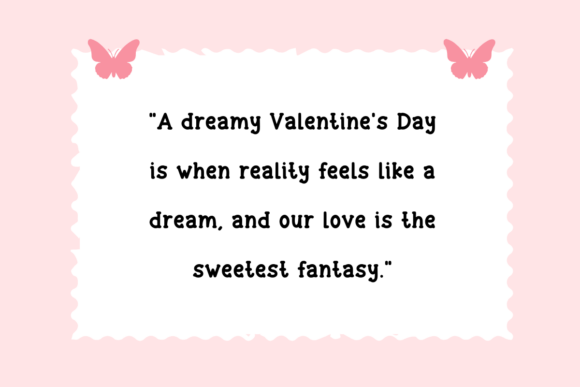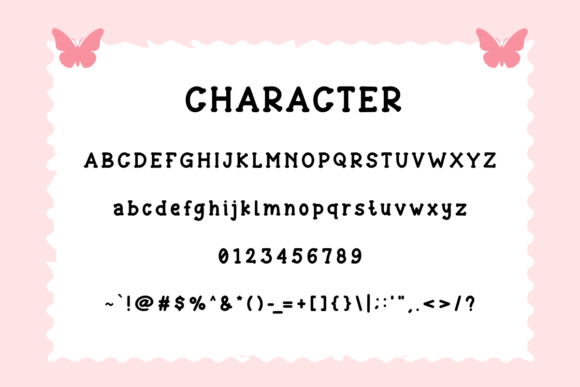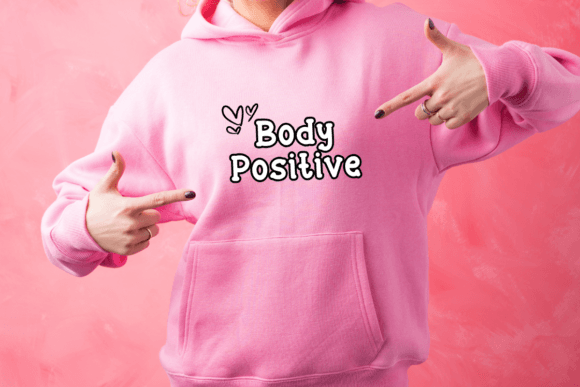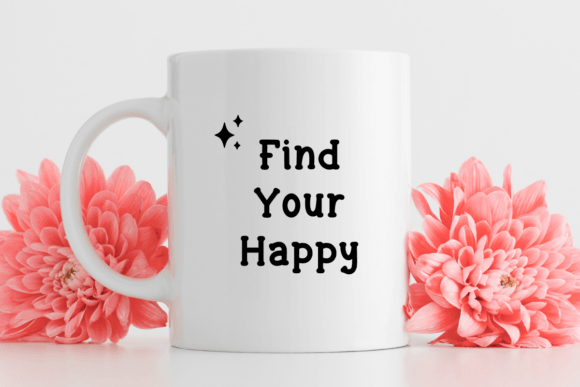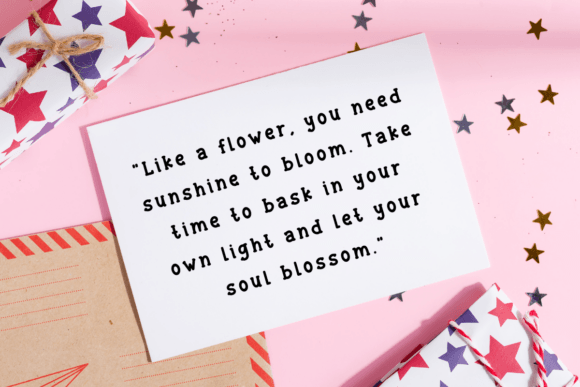
Dreamy Valentine Font: The Perfect Choice for Romantic Designs
Are you looking for a font that captures the essence of love and romance? Look no further than the Dreamy Valentine Font. This charming slab serif font is designed to add a touch of whimsy and playfulness to your designs, making it perfect for Valentine’s Day projects, wedding invitations, greeting cards, and heartfelt designs.
What Makes Dreamy Valentine Font So Special?
Dreamy Valentine Font is a unique and eye-catching font that features bold, rounded edges and a soft, playful style. The font’s subtle heart details add a romantic touch, making it an ideal choice for any design that requires a touch of love and affection. The font’s slab serif design gives it a sturdy and dependable feel, while its rounded edges add a playful and whimsical touch.
Perfect for Valentine’s Day Projects
Valentine’s Day is just around the corner, and with Dreamy Valentine Font, you’ll be able to create designs that are sure to impress. From sweetheart-themed greeting cards to romantic dinner invitations, this font is perfect for any Valentine’s Day project. You can use it to create:
- Valentine’s Day cards and invitations
- Romantic dinner menus and place cards
- Cupid-themed party decorations and invites
Ideal for Wedding Invitations and Designs
A wedding is a once-in-a-lifetime event, and the invitation is the first glimpse into the special day. With Dreamy Valentine Font, you can create beautiful and romantic wedding invitations that set the tone for the entire event. You can use it to create:
- Wedding invitations and save-the-date cards
- Wedding menus and place cards
- Wedding decorations and signage
- Romantic wedding stationery and gifts
Great for Greeting Cards and Heartfelt Designs
Dreamy Valentine Font is not just limited to Valentine’s Day and wedding designs. You can use it to create a wide range of greeting cards and heartfelt designs, including:
- Birthday cards and invitations
- Get well and sympathy cards
- Anniversary and love letters
- Inspirational quotes and posters
Why Designers and Crafters Love Dreamy Valentine Font
Dreamy Valentine Font is a versatile and easy-to-use font that is perfect for designers and crafters of all levels. Here are just a few reasons why:
- Easy to read: The font’s clear and bold design makes it easy to read, even at small sizes.
- Highly versatile: You can use Dreamy Valentine Font for a wide range of designs, from digital projects to print materials.
- Customizable: You can adjust the font size, color, and style to fit your design needs.
- Unique and eye-catching: The font’s subtle heart details and rounded edges make it stand out from other fonts.
Tips for Using Dreamy Valentine Font
Here are a few tips for using Dreamy Valentine Font in your designs:
- Pair it with other fonts: Combine Dreamy Valentine Font with other fonts to create a unique and interesting design.
- Experiment with colors: Try out different colors and shades to find the perfect match for your design.
- Add graphics and illustrations: Use Dreamy Valentine Font in combination with graphics and illustrations to create a visually appealing design.
Dreamy Valentine Font is a charming and versatile font that is perfect for designers and crafters looking to add a touch of romance and whimsy to their designs. With its bold, rounded edges and subtle heart details, this font is sure to capture the essence of love and affection. Whether you’re creating Valentine’s Day projects, wedding invitations, or heartfelt designs, Dreamy Valentine Font is the perfect choice.